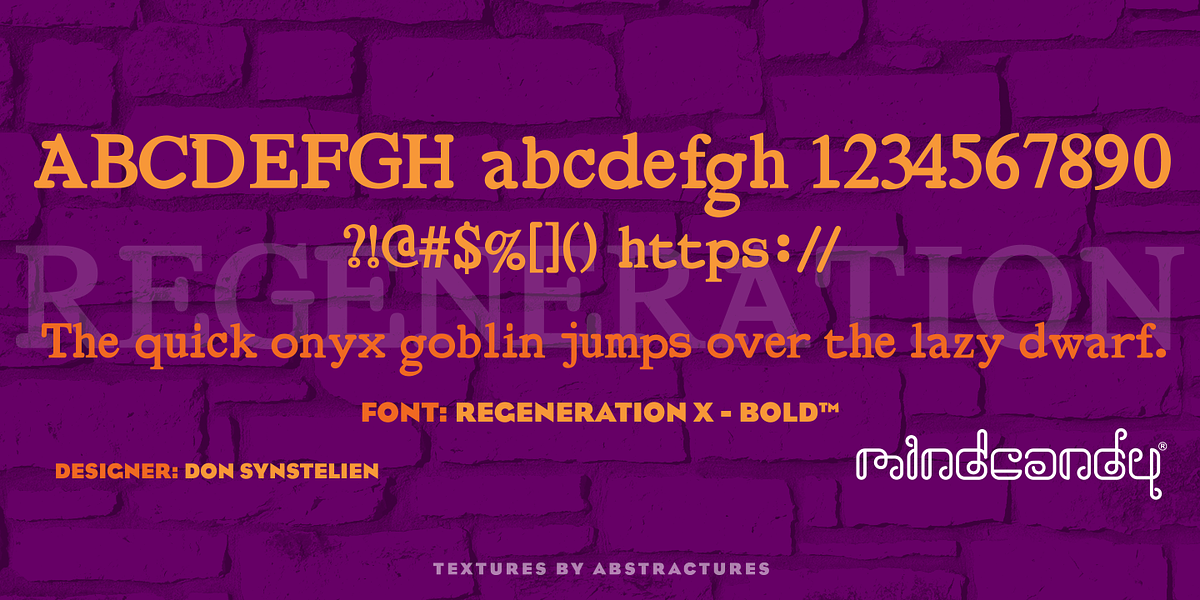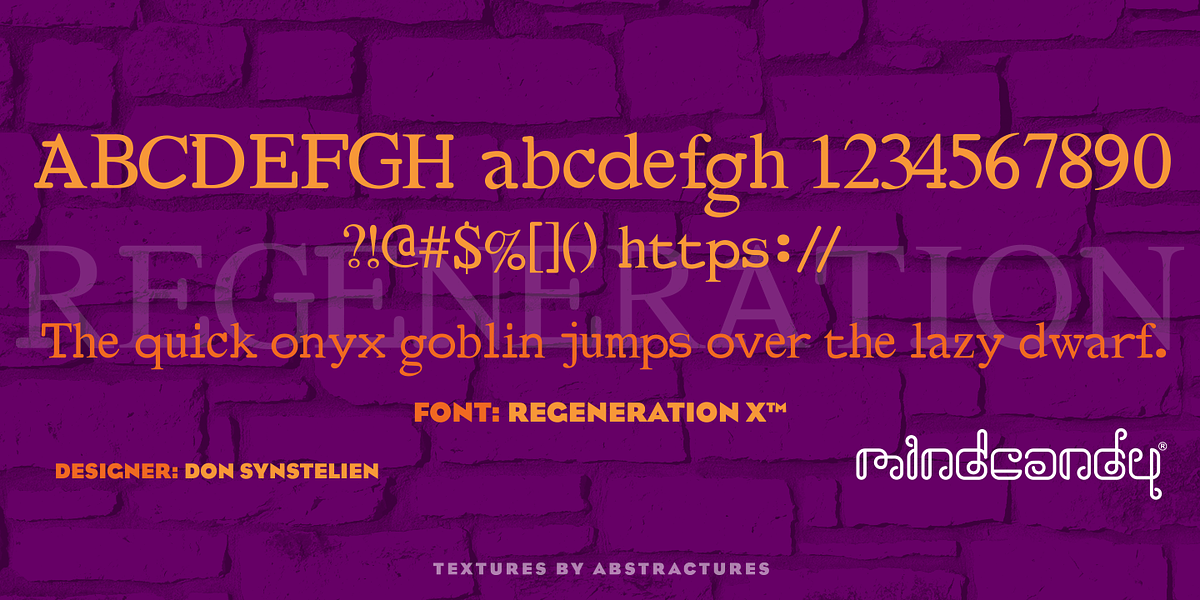
RegenerationX™
This display serif font features a classic design with pronounced flared serifs, giving it a vintage aesthetic. It is well-suited for headlines, branding materials, and posters where a touch of elegance and nostalgia is desired.